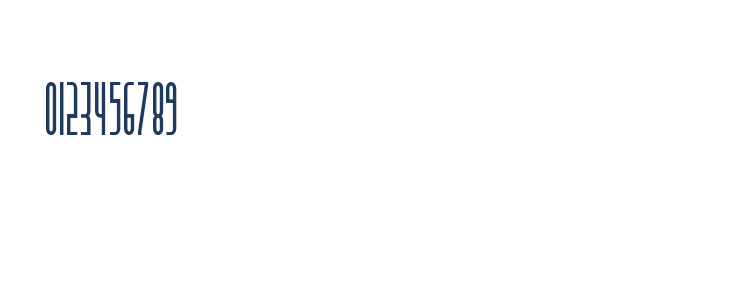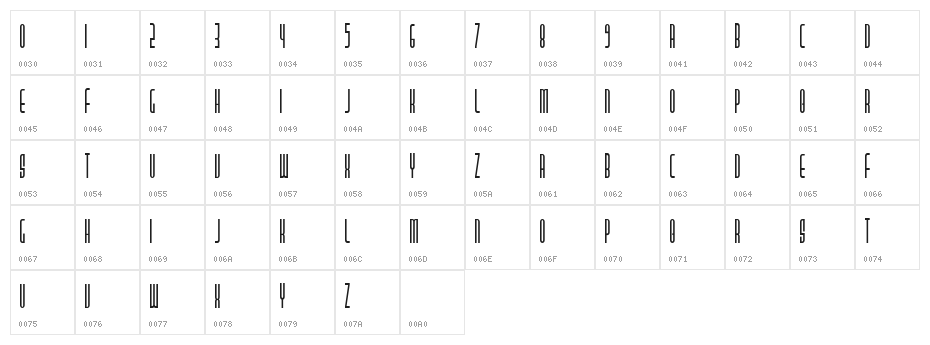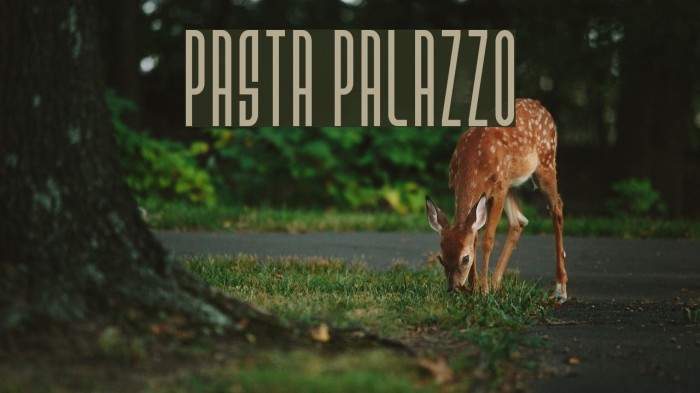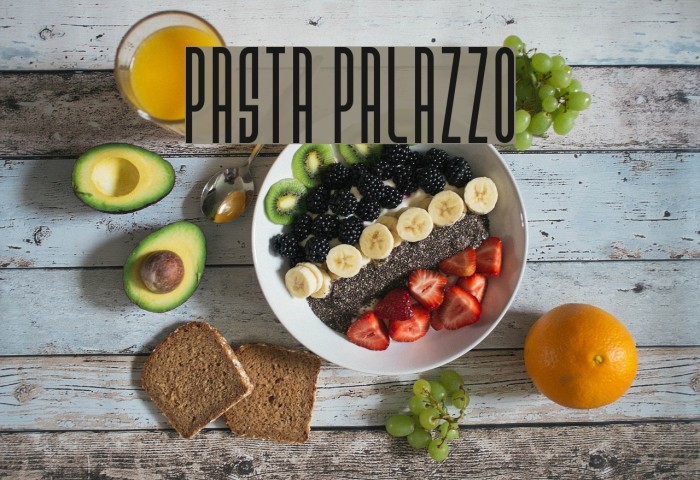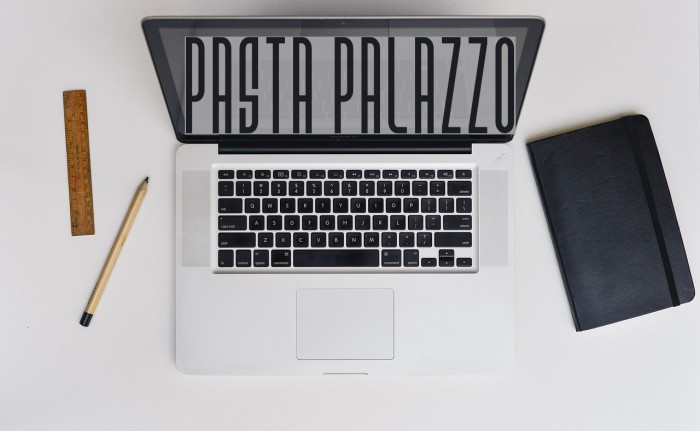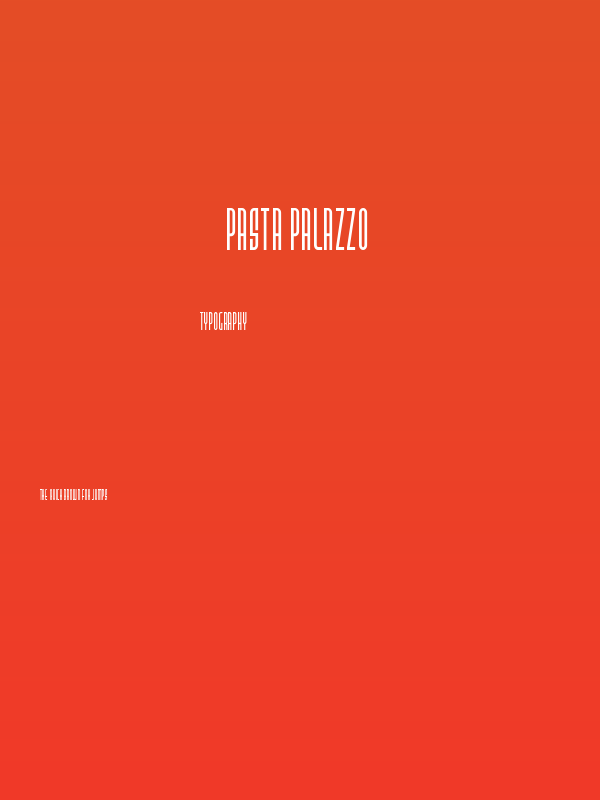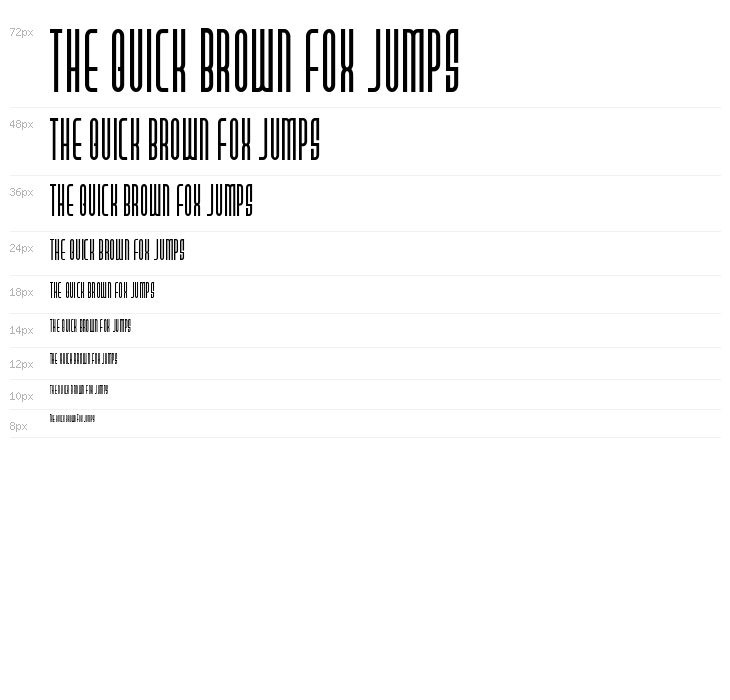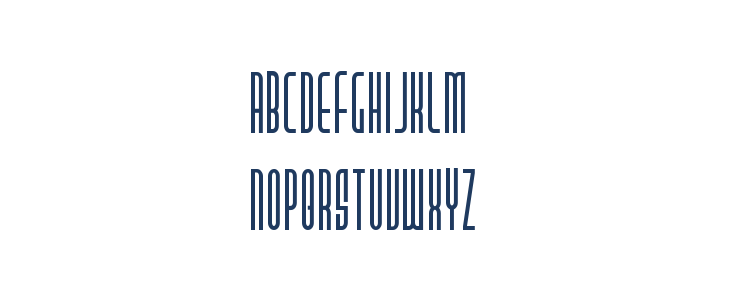
Pasta Palazzo Font
Pasta Palazzo Description
This font features a tall and narrow design with a distinctly modern and elegant appearance. The characters are elongated and have a consistent stroke width, giving them a sleek and streamlined look. The uppercase and lowercase letters maintain a uniform height, contributing to a cohesive and orderly aesthetic. The numerals and special characters are designed to match the overall style, ensuring a harmonious appearance across all text. This font's clean lines and geometric structure make it suitable for a variety of design applications where a contemporary and sophisticated feel is desired.
| Proposed Projects | Ideal for branding, packaging, posters, and editorial design where a modern and elegant touch is needed. |